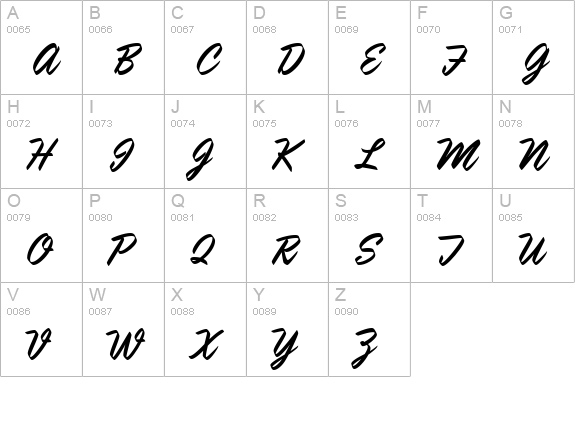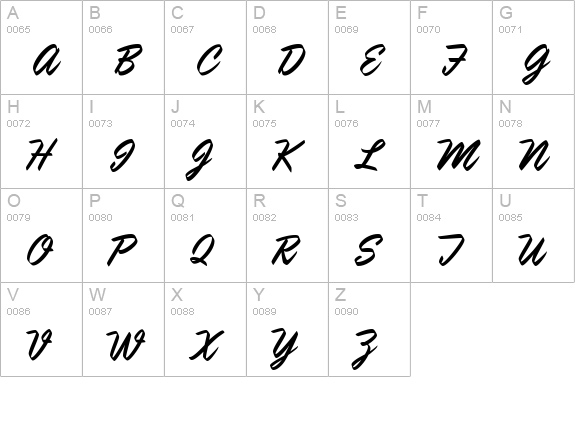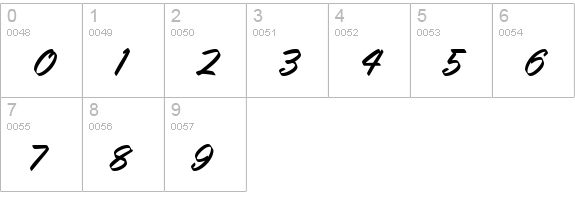
MartiniJF Font Details
MartiniJF font is a stunning and stylish typeface that exudes elegance and sophistication. Its sleek and smooth lines make it the perfect choice for any design project that requires a touch of class. The letters are beautifully crafted, with each curve and stroke meticulously designed to create a harmonious balance. With its timeless appeal, MartiniJF font is suitable for a wide range of applications, from branding and logo design to editorial layouts and packaging. It adds a touch of refinement to any piece of work, instantly elevating it to a higher level of sophistication. One of the best things about MartiniJF font is that it is free. Yes, you read that right. This stunning typeface is freely available to download at FontsMarket.com. Now you can enjoy the beauty and elegance of MartiniJF font without having to spend a dime. Whether you're a professional designer or an aspiring artist, MartiniJF font is a must-have in your font library. Its versatility and timeless appeal make it a valuable asset for any creative project. So why wait? Head over to FontsMarket.com and download MartiniJF font today. Unleash your creativity and let this beautiful typeface elevate your designs to new heights.